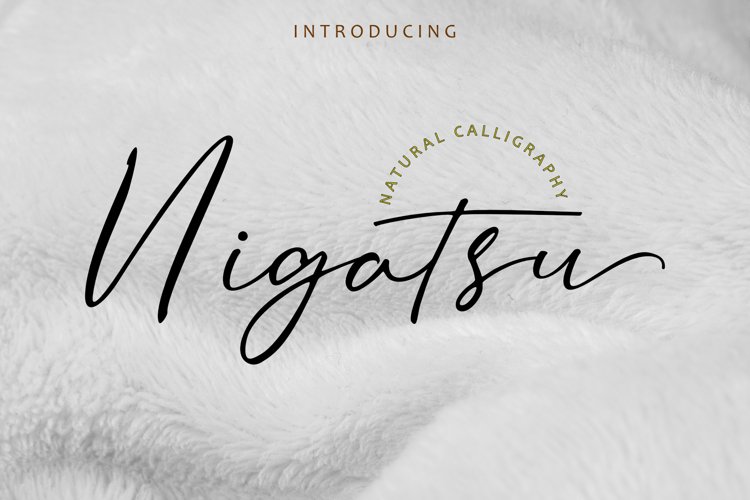
Nigatsu Script handwritten font.
This font is made in a modern style with a very natural typeface, elegantly, very casual and suitable for your various design needs Perfect for logo, branding, tittle, social media posts, advertisements, product packaging, product designs, label, photography, watermark, special event, magazine, web design, etc.
- Stylistic Alternates
- múltílïngûãl süppórts
- Nearly 400 Glyphs